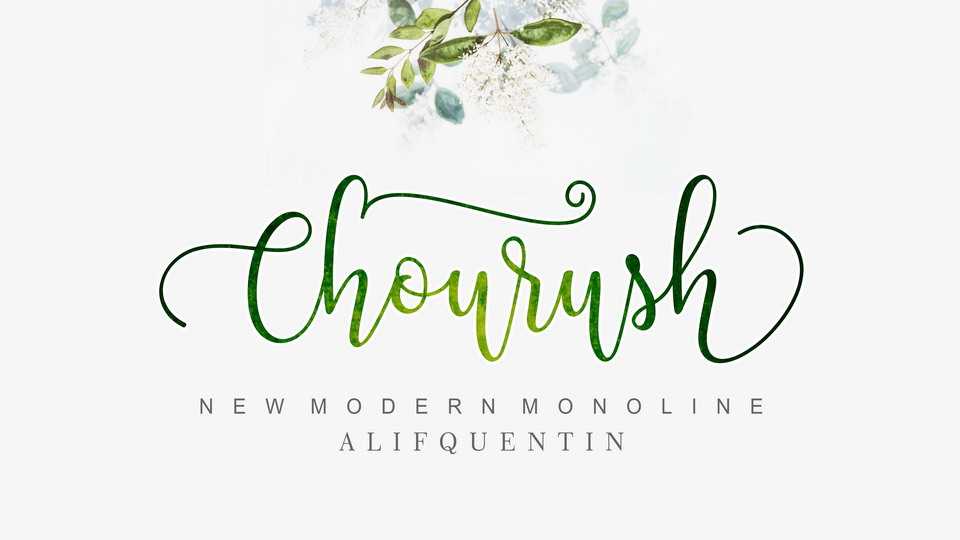
Download Chourush font, a charming modern calligraphy script with elegant swashes. Chourush perfectly suits for wedding decoration, feminine logos, branding, letters, cards, social media and other beautiful designs.
Designer: Alif Quentin